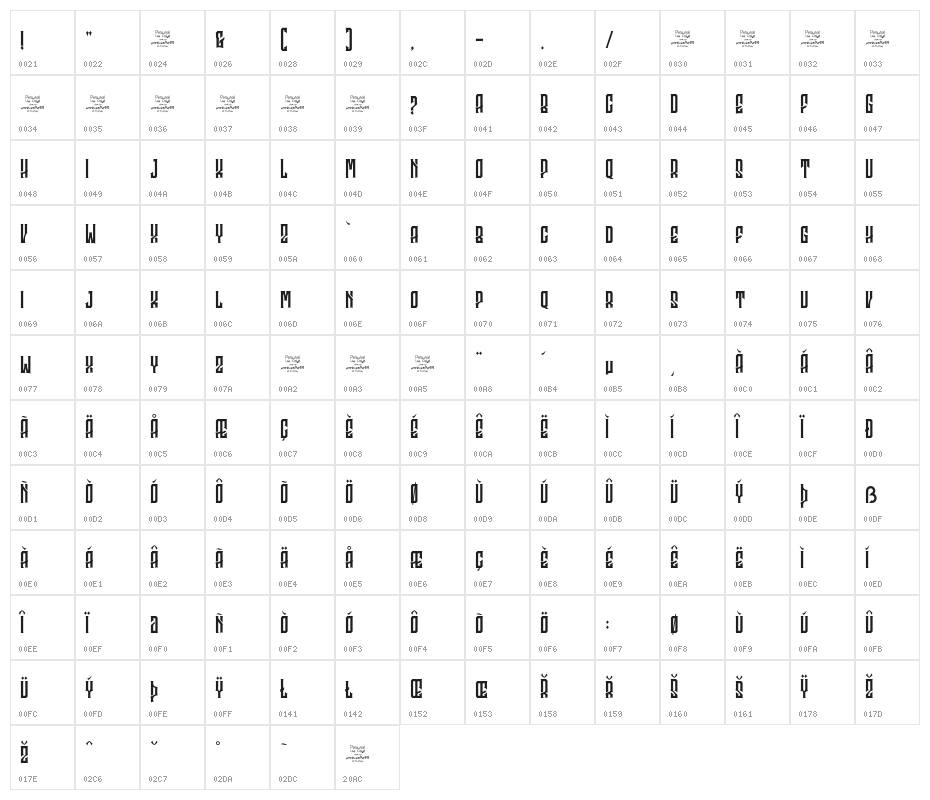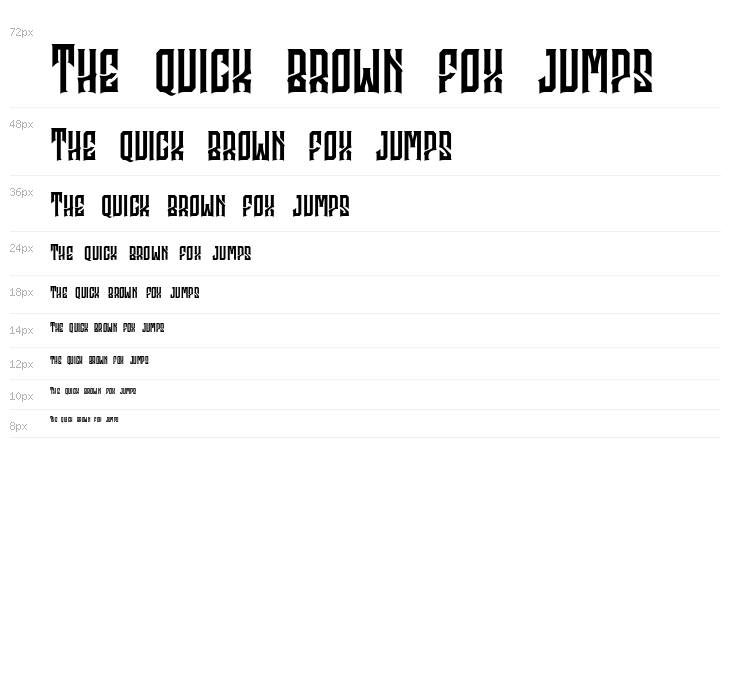
Godhong Personal Use Regular Font
Godhong Personal Use Regular Description
This font features a bold and striking design with sharp, angular edges and a distinct geometric style. The uppercase and lowercase letters maintain a consistent height, creating a uniform appearance. The characters exhibit a high contrast between thick and thin strokes, enhancing their visual impact. The font's unique cut-out elements and pointed serifs give it a modern, edgy look, making it suitable for attention-grabbing designs. The numbers and special characters follow the same stylistic approach, ensuring cohesion across all elements.
| Proposed Projects | Ideal for posters, album covers, branding, and any project requiring a bold, modern aesthetic. |